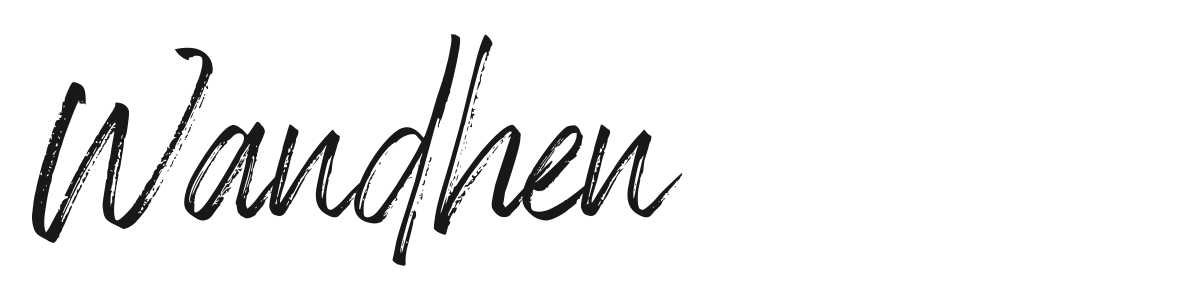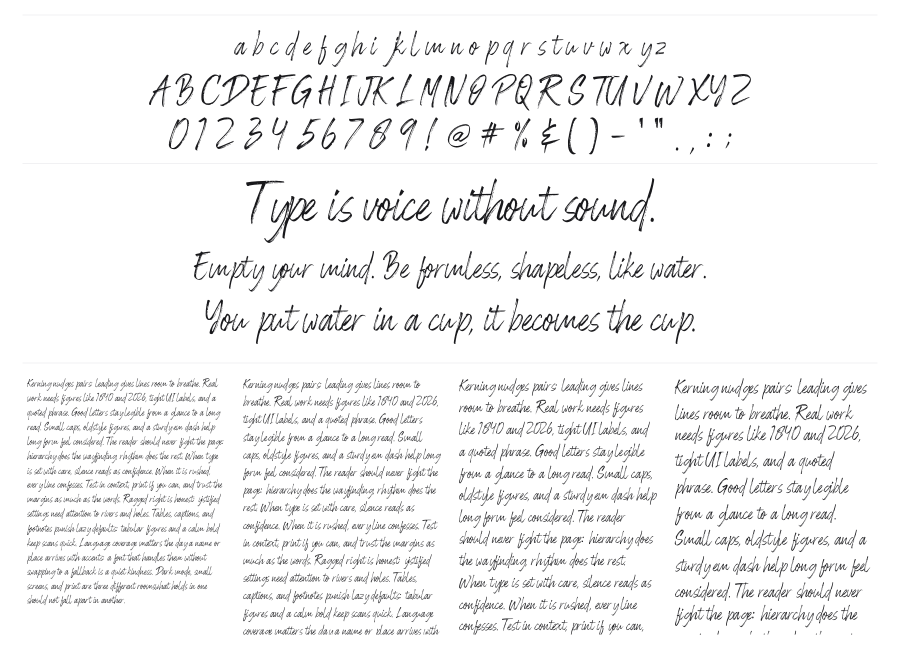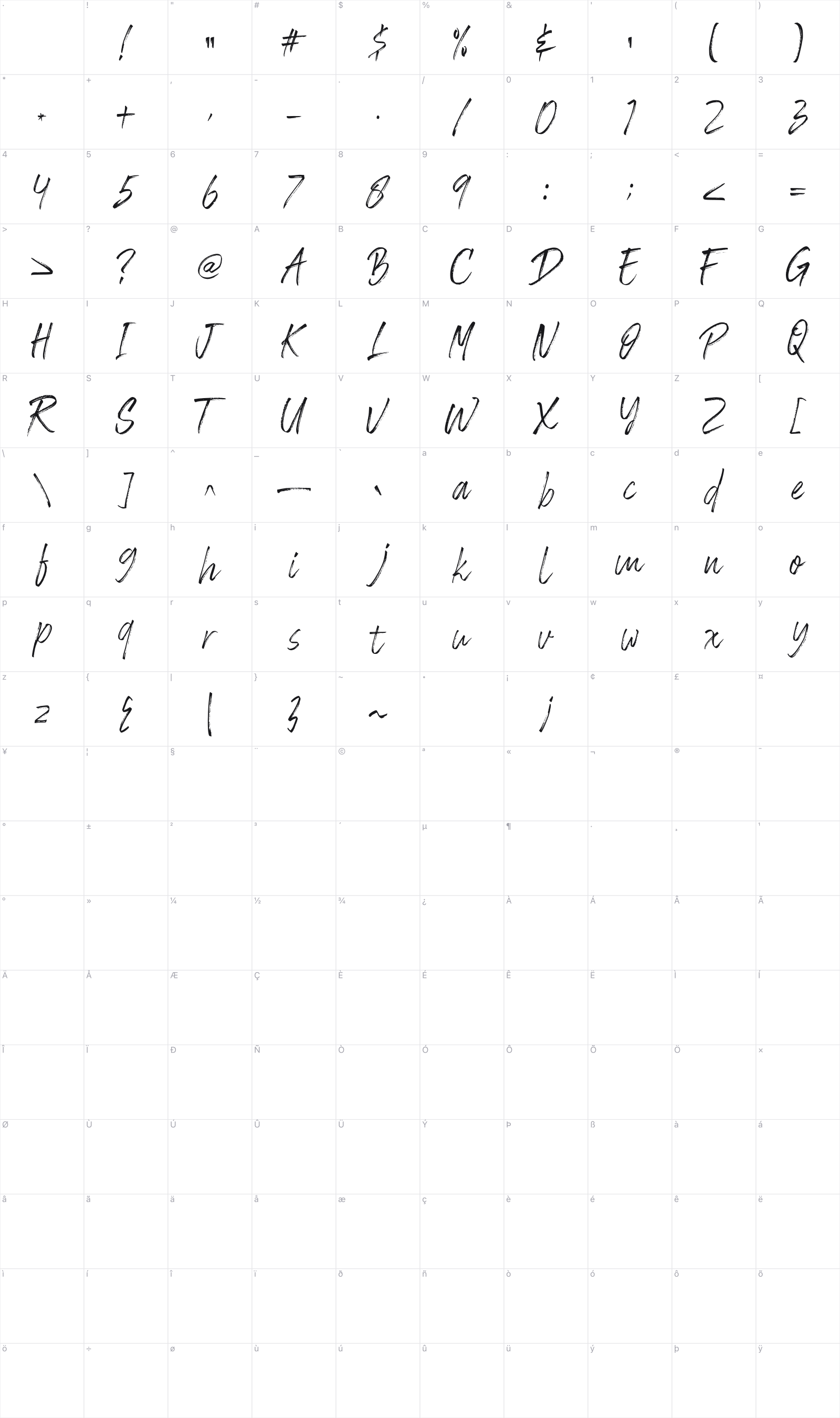
Wandhen
Wandhen is a casual brush script with rough, dry-brush texture and loose, flowing connections between letters. The ink breakup and irregular strokes give it an authentically handmade feel that polished scripts lack. It works at large sizes where the texture can read clearly.